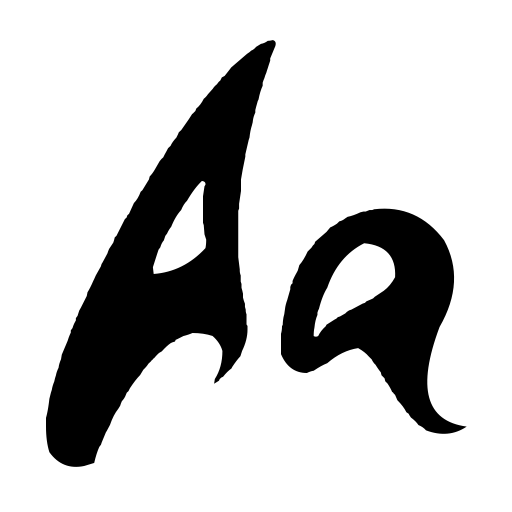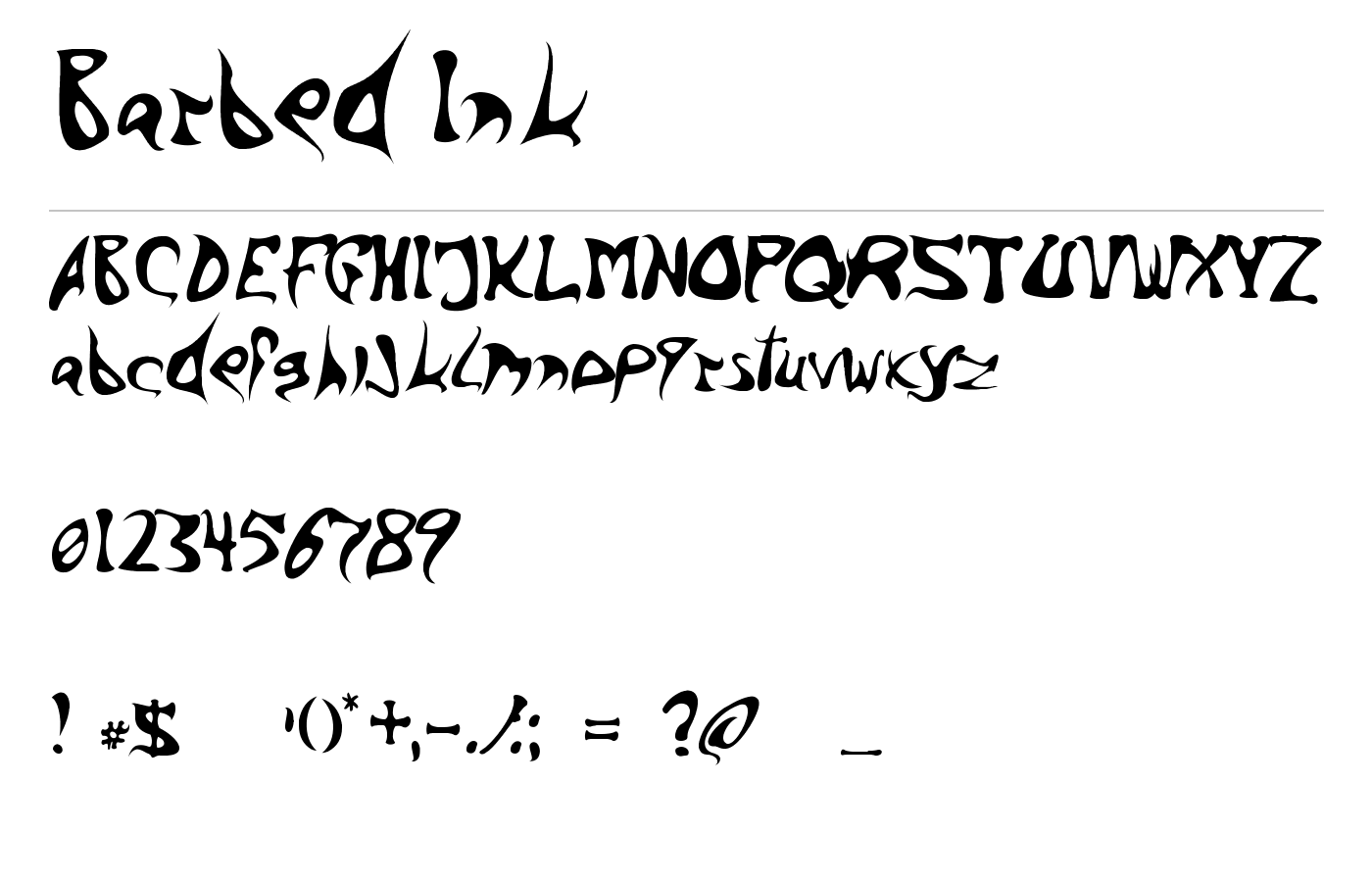
Barbed Ink is a highly stylized, decorative font with a bold, irregular design that features sharp, pointed serifs and dynamic, playful strokes. This font creates a distinctive, edgy, and somewhat mysterious vibe, making it perfect for creative projects like posters, logos, or titles that want to convey an artistic or unconventional mood. Its dramatic shapes and uneven forms work best in headlines and display use rather than long texts, ensuring maximum visual impact.
Barbed Ink Font
About Barbed Ink Font
| Font family | Barbed Ink Font |
| Designer | Mathieu Klomp (Teup) |